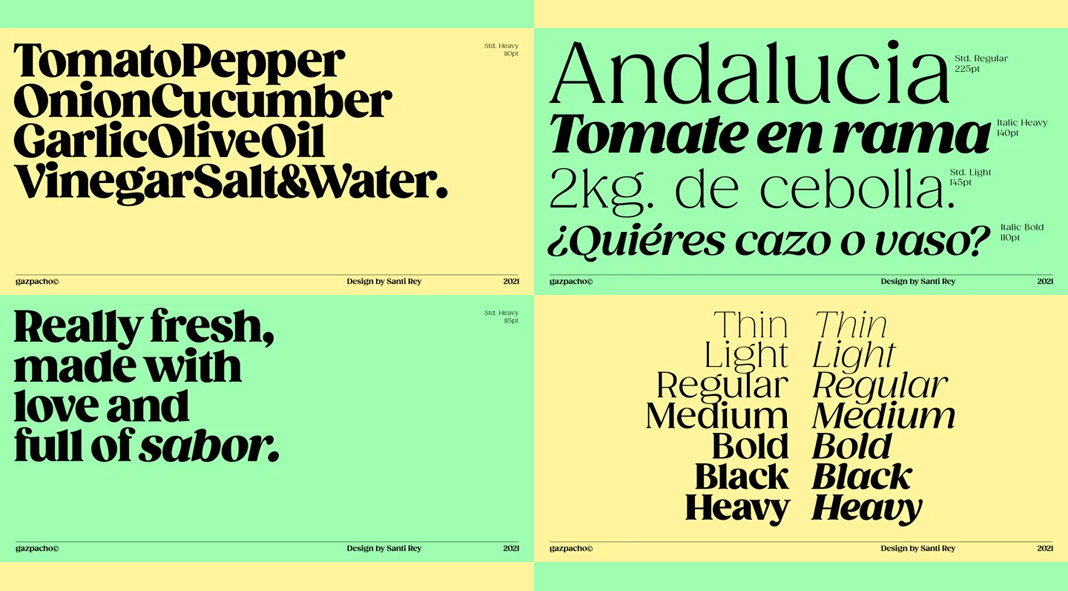
Gazpacho, a vintage-inspired font family designed and published by Santi Rey.
Designed and published just recently by UK-based typeface designer Santi Rey, Gazpacho is a charming vintage-inspired font family that comes in seven different weights plus matching italics for each weight. This elegant typeface is a great choice for display use including bold headlines or logo designs. The font family is also well suited for plenty of design projects such as branding, packaging, poster designs, websites, or editorial work. Its high contrast shapes ensure great readability—that’s why you can also use it for texts in small sizes. Just click on the following link or have a look at the images below to learn more about this charming new font family called “Gazpacho”.